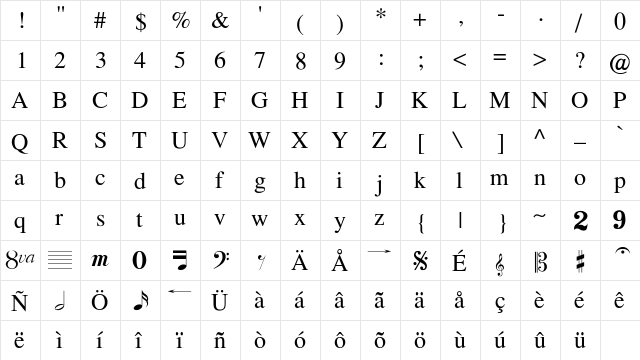
DonteFont Regular
Design Context for DonteFont Typeface
DonteFont takes a measured approach to typography — its balanced proportions and neutral character make it a reliable workhorse for both digital and print work.